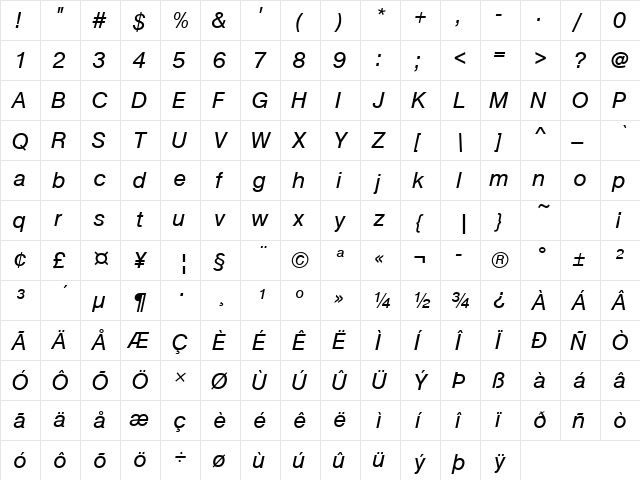
Nimbus Sans Becker P Italic
Design Context for Nimbus Sans Becker P Typeface
Nimbus Sans Becker P offers clean, dependable letterforms without strong stylistic allegiance, making it a practical choice for designers who need flexibility. The dynamic lean of this cut emphasises speed and emphasis in any layout.
Pro Tip: Use Nimbus Sans Becker P for emphasis, pull quotes, and subheadings where its slanted energy can add rhythm to the layout.